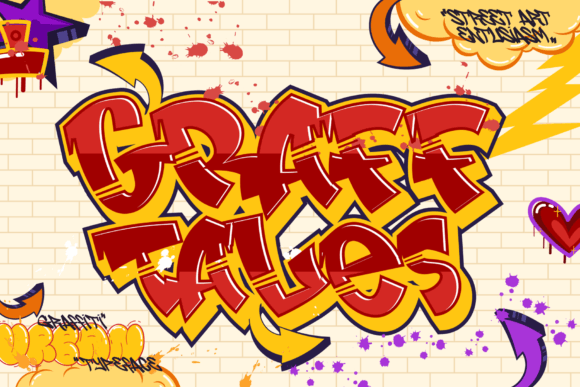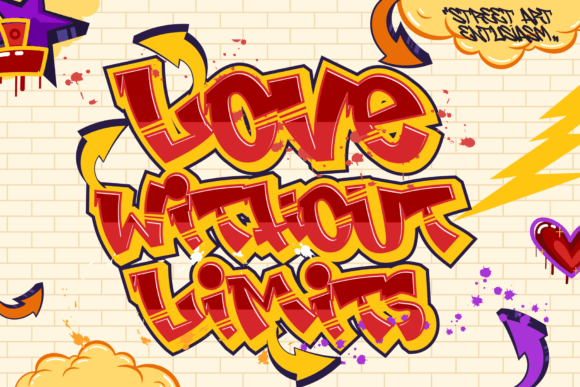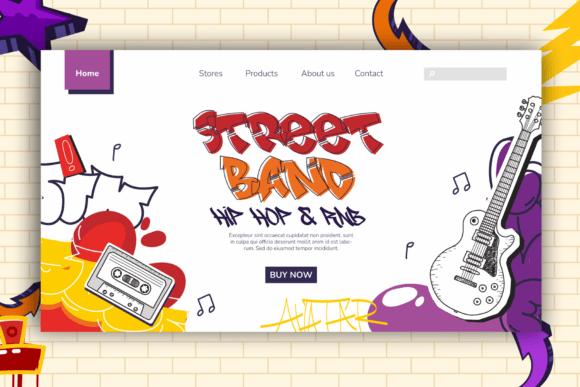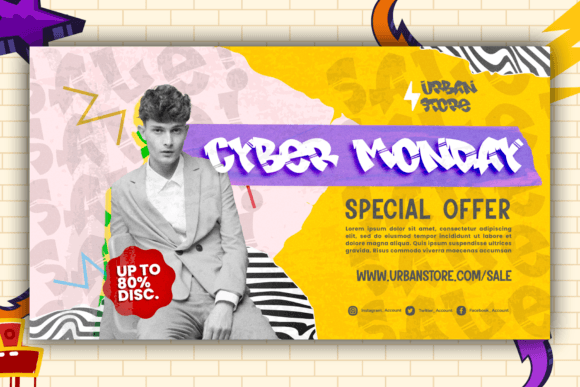
Graff Tales Font: A Bold Graffiti Font for Creative Posters & Designs
About the Graff Tales Font
Elevate your designs with Graff Tales Font, a font that combines sophistication with readability. Unleash the energetic spirit of city streets with Graff Tales, a daring graffiti font. It showcases characteristic small breaks within every letter, bringing about an aura of bona fide street art. Graff Tales’ sturdy strokes and genuine representation encapsulates the edgy, unfiltered vibe of urban graffiti to your fingertips. Its distinct style is befitting for impactful branding, striking posters, vibrant album covers and any other creative pursuit that necessitates a pure graffiti aesthetic.
Employ Graff Tales in your designs for a fearless statement that naturally differentiates itself. Experience the rhythm of the streets in each letter and accentuate the authenticity in your masterpieces.
Graff Tales Font Usage Examples
Graff Tales Font Example